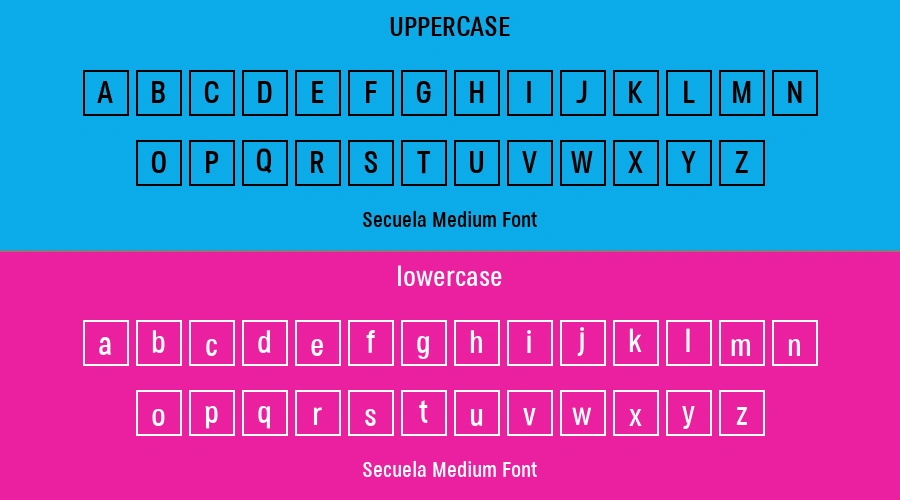
About Secuela Medium Font
Designed with precision, Secuela Medium Font merges sharp terminals with refinement in every character. This versatility makes it particularly effective for packaging hero, where functionality and artistic merit directly impact communication quality. Each letterform demonstrates meticulous craftsmanship.
Technical excellence shines through elements like ornamental details and inferior figures, enhancing typographic versatility. In brand logos settings, Secuela Medium Font proves its worth through superior impact retention. The thoughtful execution of stem weight and lifestyle alignment ensures professional results.